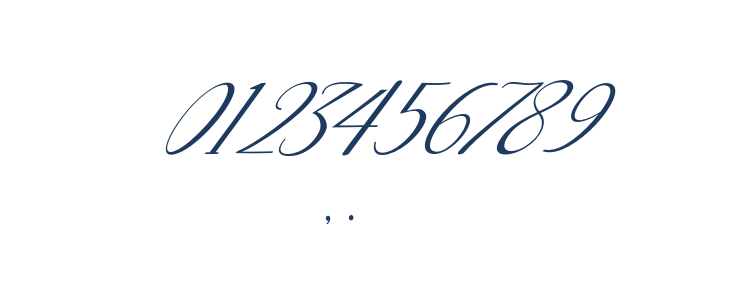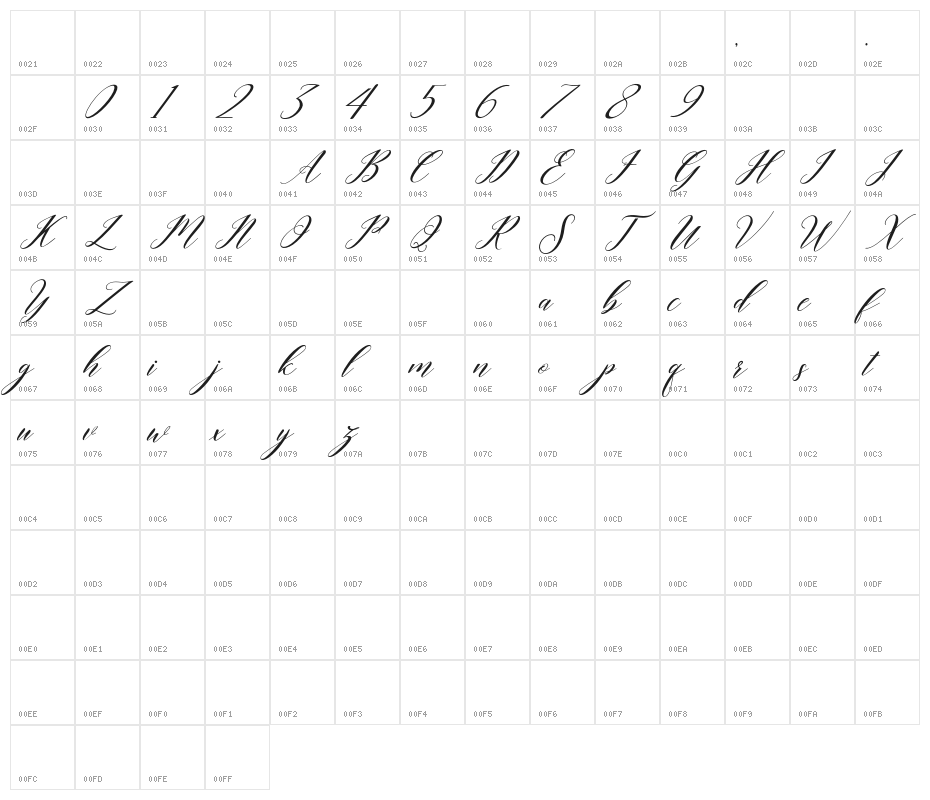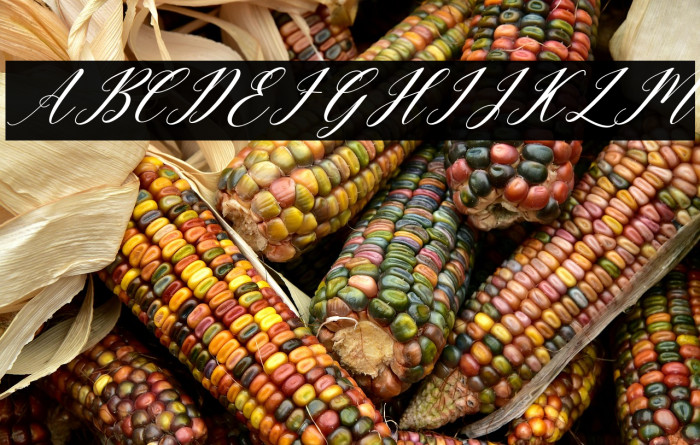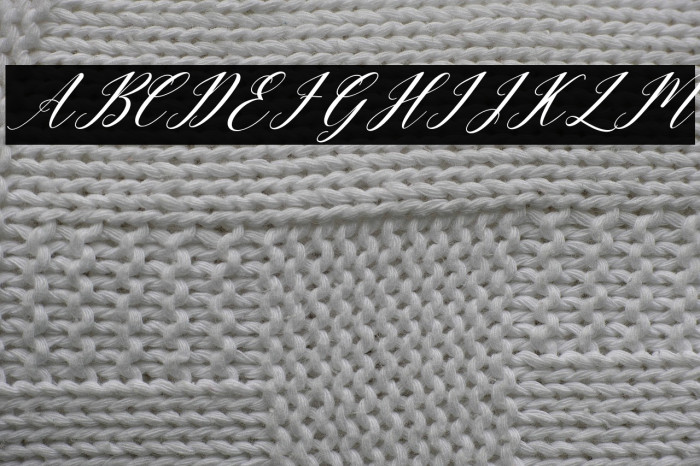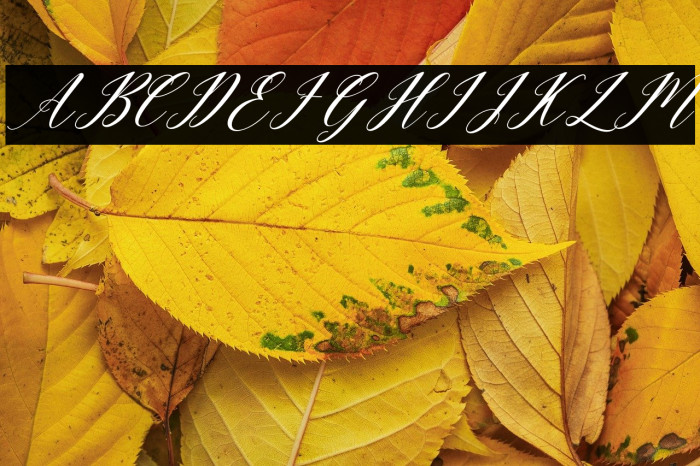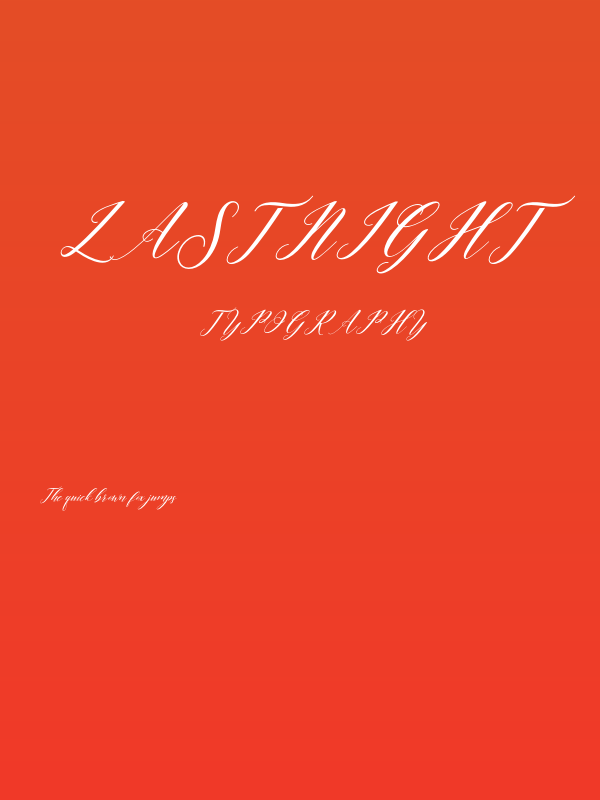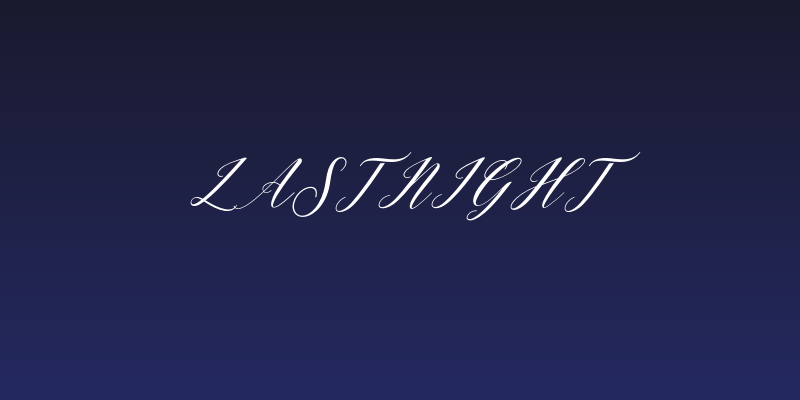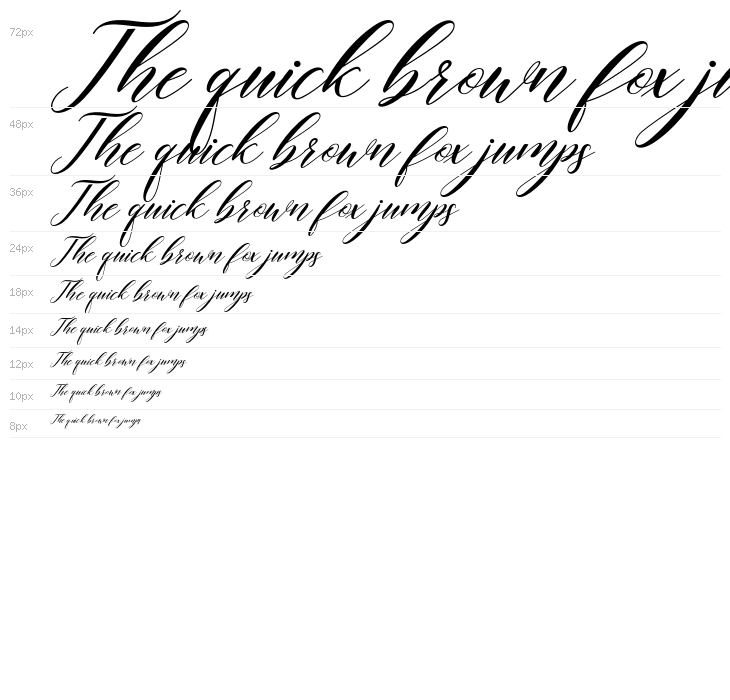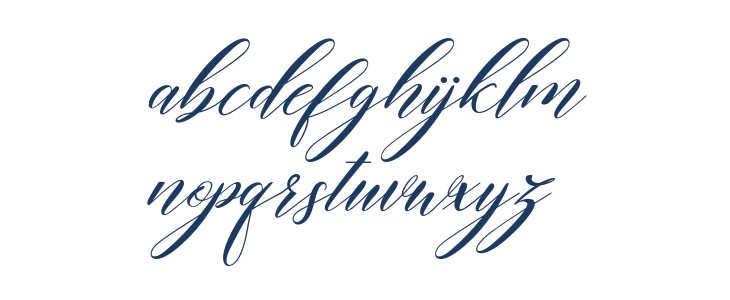
lastnight Font
lastnight Description
This elegant script font features fluid, cursive strokes that exude sophistication and grace. The uppercase letters are characterized by sweeping loops and flourishes, giving them a sense of movement and dynamism. The lowercase letters maintain a consistent slant, with elongated ascenders and descenders that add to the font's overall elegance. The numerals are equally stylish, with a harmonious blend of curves and angles. This font is perfect for projects that require a touch of class and refinement, such as wedding invitations, formal event programs, or luxury branding. Its intricate design and high contrast between thick and thin strokes make it stand out, ensuring that any text set in this font will capture attention.
| Overall Style | Elegant, Sophisticated |
| Use Case | Headlines, Invitations, Branding |
| Proposed Projects | Ideal for wedding invitations, luxury branding, formal event programs, and elegant stationery. |